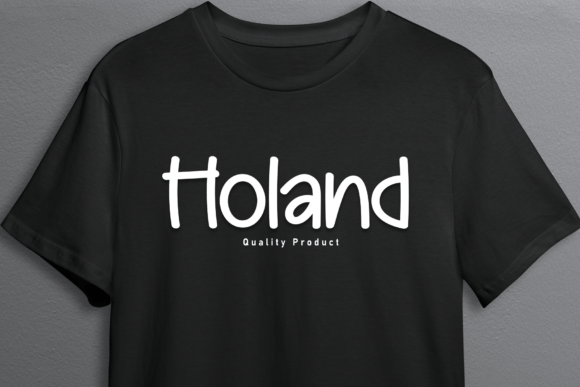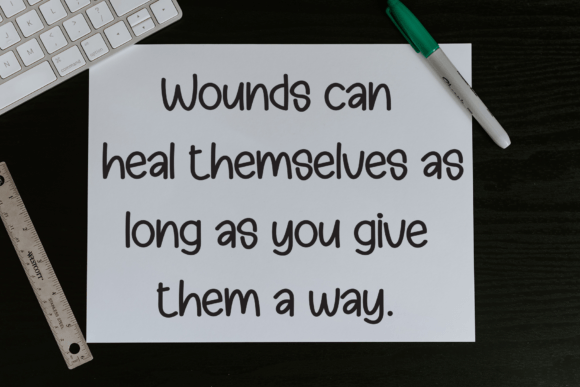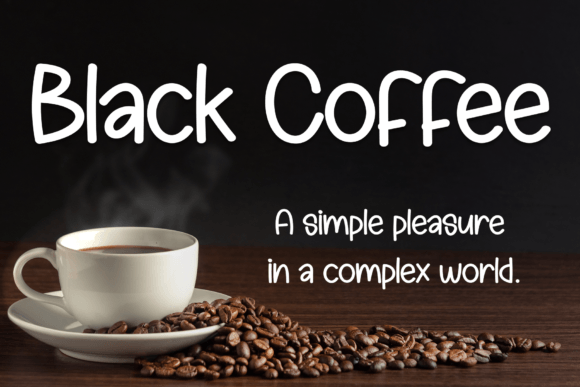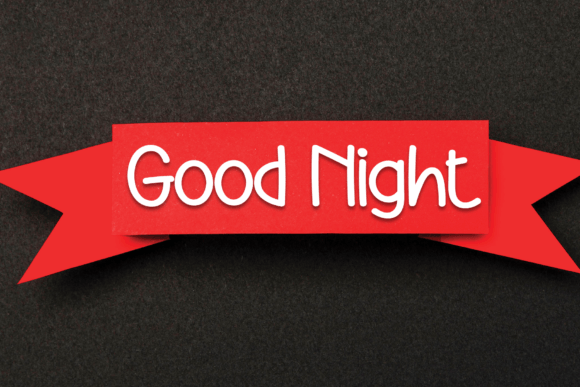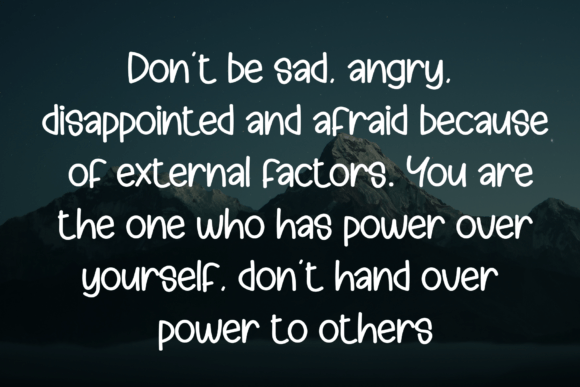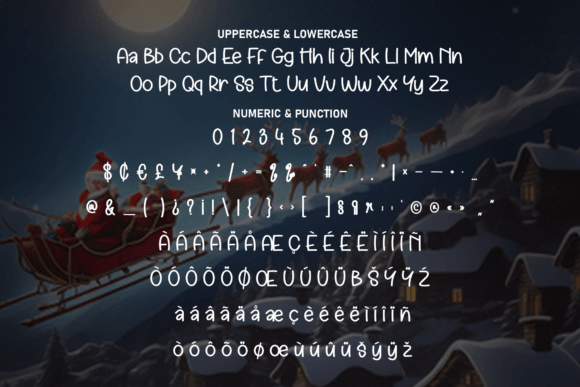
Introduction to Night Santa Font
Night Santa is a casual handwritten font that captures a relaxed and friendly vibe with its natural, flowing strokes.
Ideal for personal projects, social media, and invitations, it brings an effortless, charming touch to any design The fontโs easygoing style adds warmth and authenticity.
Key Features of Night Santa Font
Why Choose Night Santa Font?